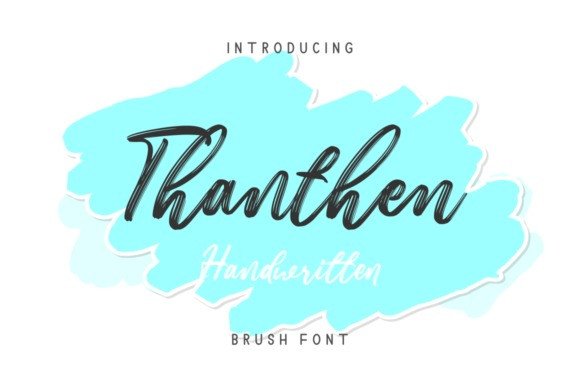
Thanthen Brush Font
Hello! Thanthen Font is a beautiful hand brush typeface. It’s stunning and enchanting, but also incredibly modern. This versatile script font has a wide range of applications ranging from greeting cards to headlines and is guaranteed to add a romantic feel to your next project.
Thanthen is a sweet, soft hand-lettered script font. Its playfully rounded characters make it the perfect font for creating stunning stationery or nature-themed art. Coffyan comes packed with beautiful PUA-encoded swashes, that will allow you to add a decorative touch within seconds.
Fall in love with its romantic feel and use it to create gorgeous wedding invitations, beautiful stationary art, eye-catching social media posts, and cute greeting cards.